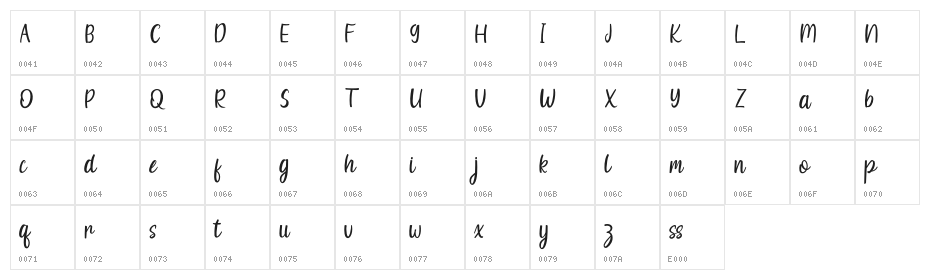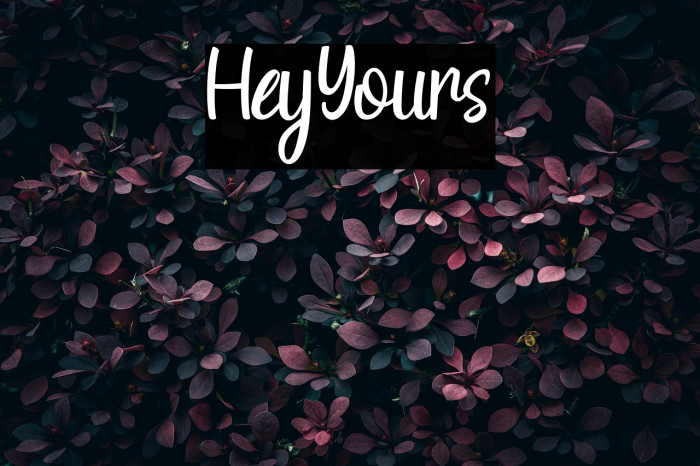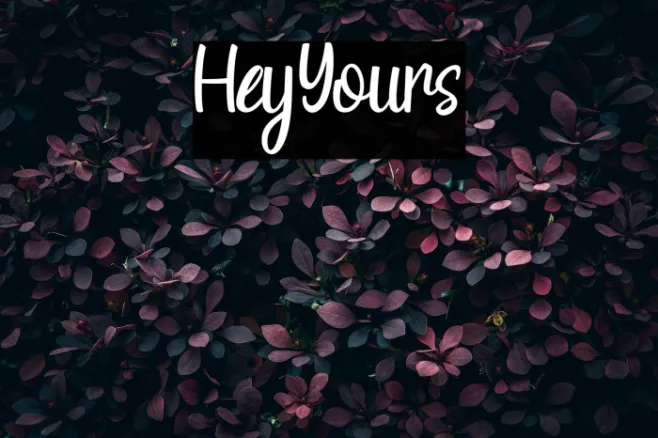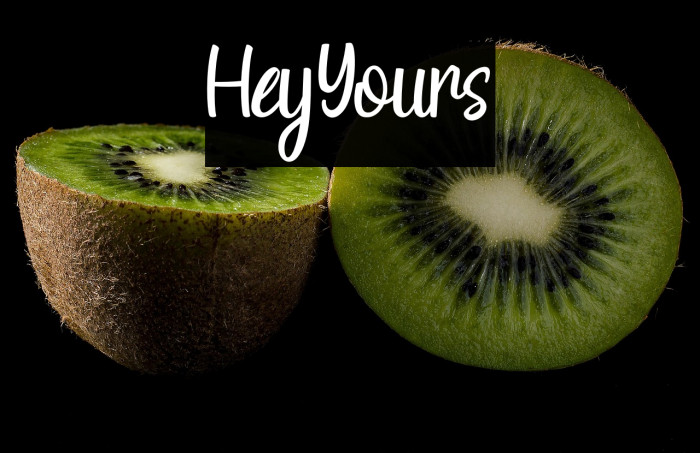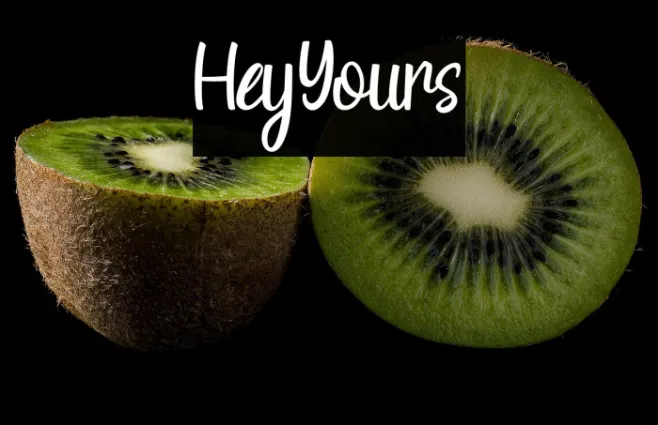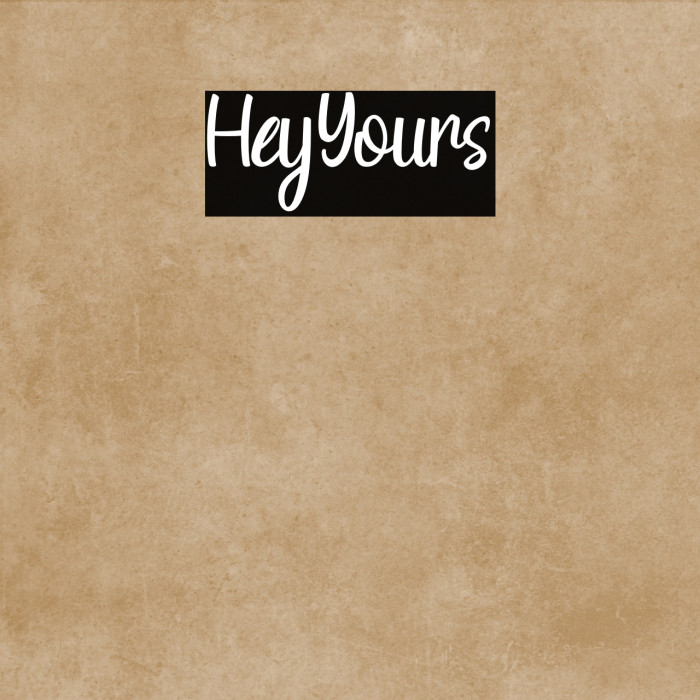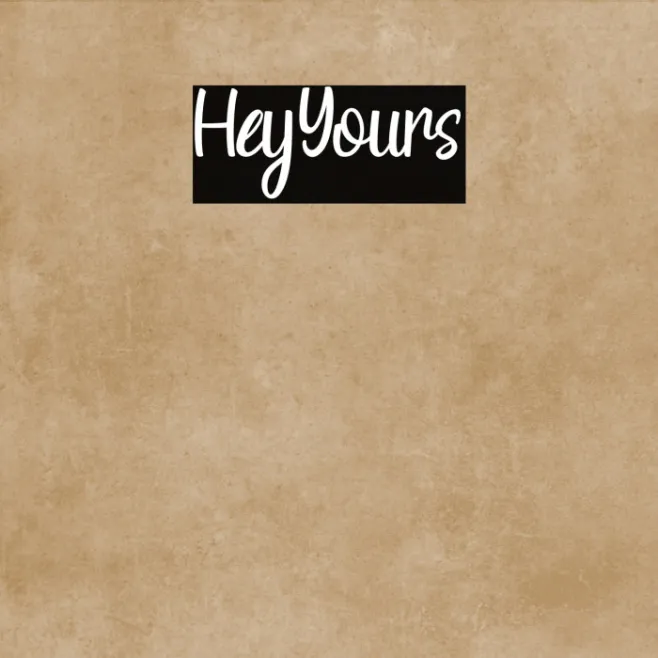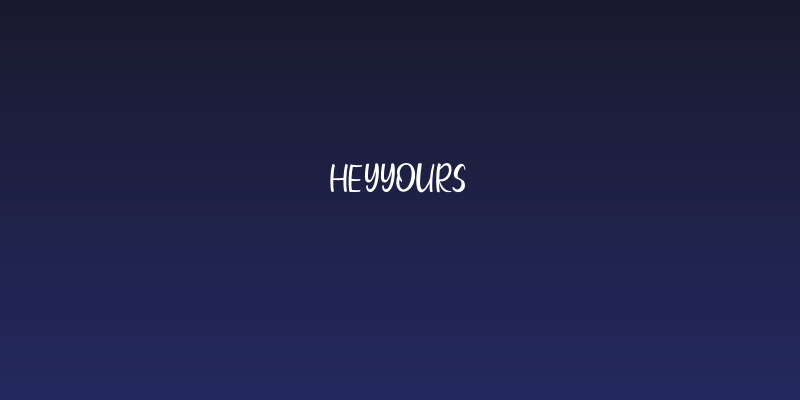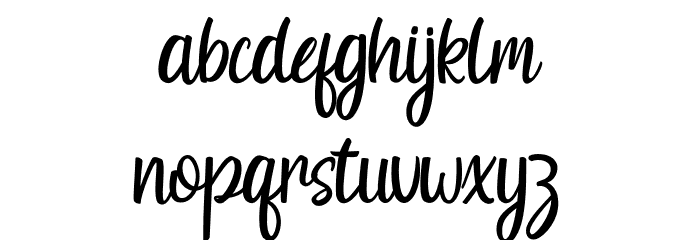
HeyYours Font
HeyYours Description
This font features a playful and casual script style with smooth, flowing lines that give it a handwritten appearance. The uppercase letters are slightly taller and more upright, while the lowercase letters exhibit a more connected and cursive form. The overall look is friendly and approachable, making it suitable for informal and creative projects. The characters have a consistent stroke width, contributing to a balanced and harmonious appearance. The font lacks special characters, focusing solely on the alphabet.